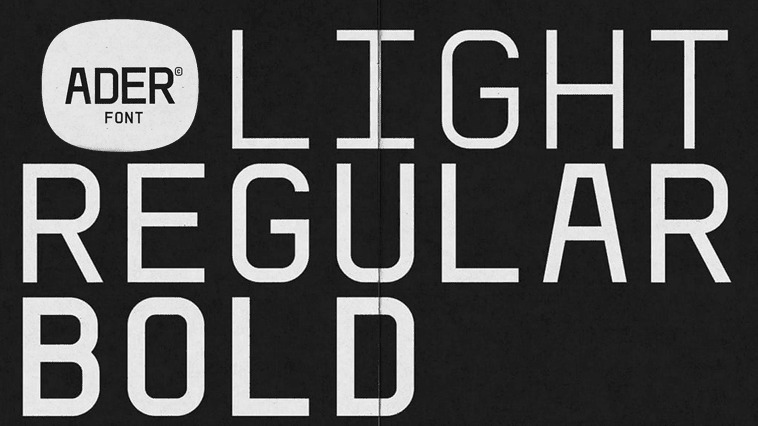
ADER Sans Serif Font
This is a sans serif typeface with details that give typography that has its own characteristics from the thinnest to the thickest that is slightly widened. ADER Font is a monospaced geometric typeface that comes in three weights (Light, Regular and Bold). Smooth corners are combined with slight angles to create a bold, readable design that is appropriate for a variety of uses.